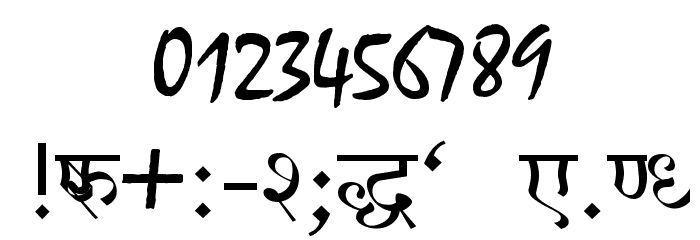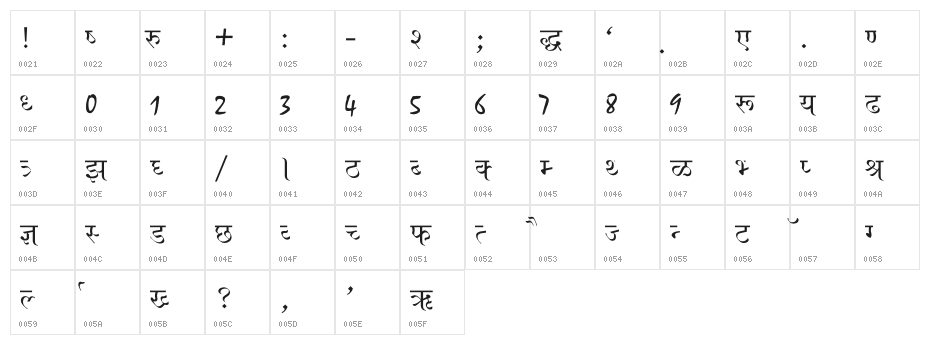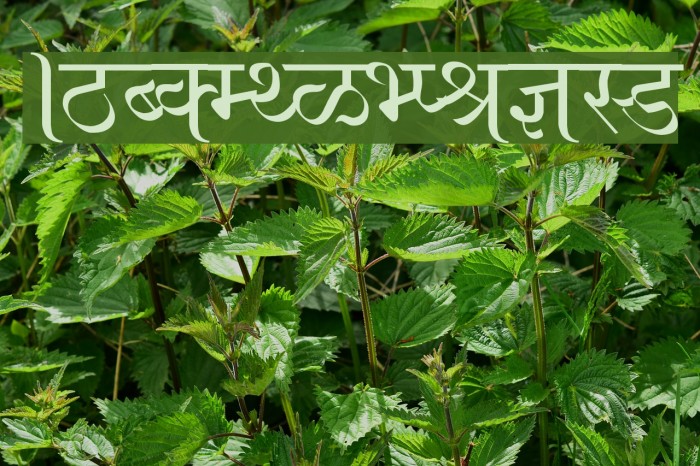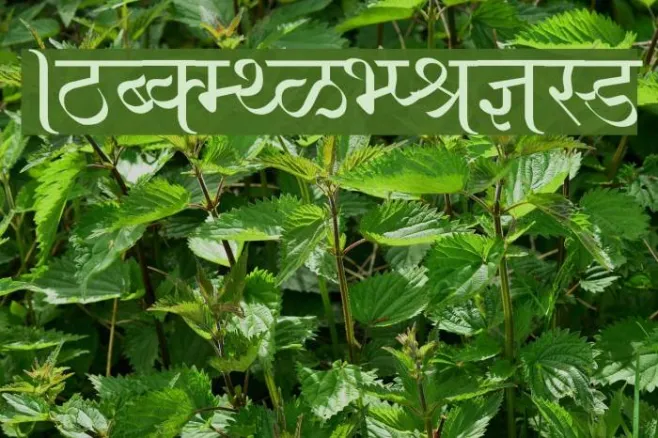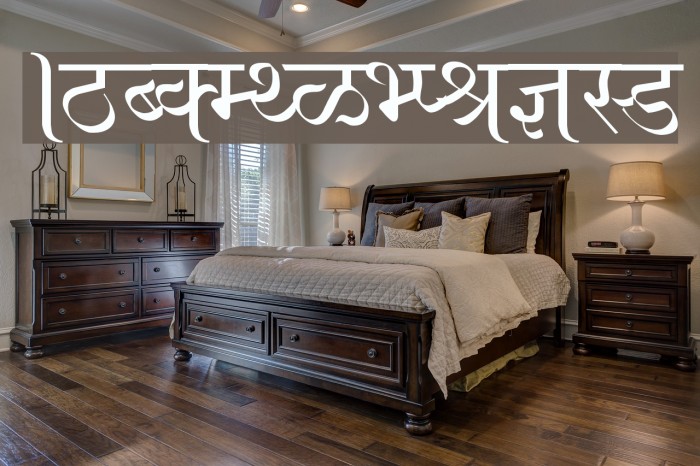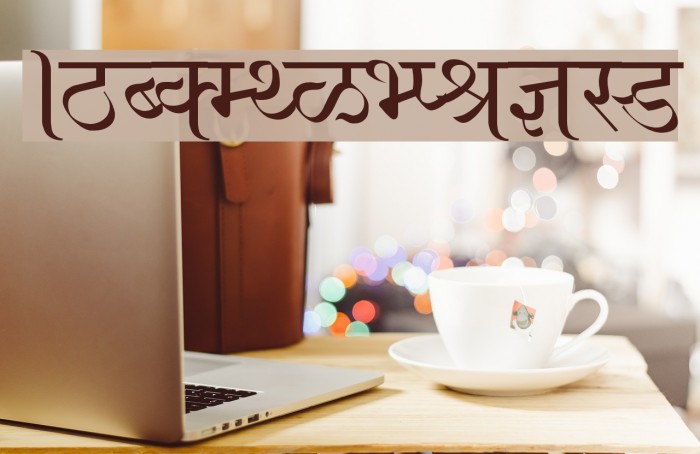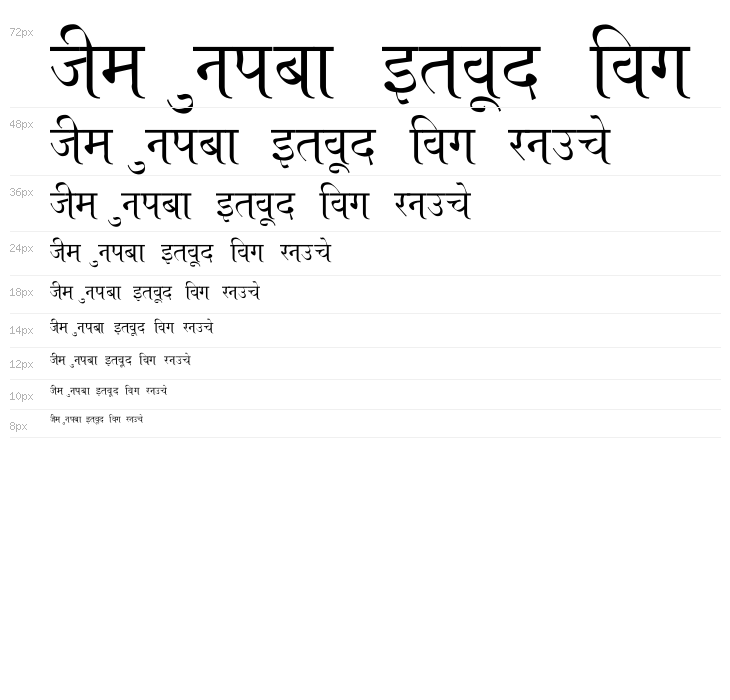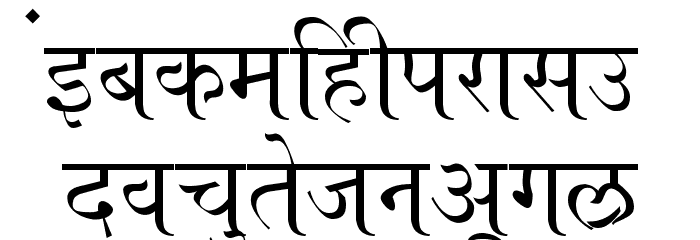
Ajay Normal Font
Ajay Normal Description
This font showcases a traditional Devanagari script with a classic and elegant style. The characters are intricately designed, featuring a blend of sharp and rounded edges that give it a sophisticated appearance. The strokes are moderately thick, providing a balanced contrast that enhances readability while maintaining an artistic flair. The numerals and special characters are harmoniously integrated, matching the overall aesthetic of the script. This font is ideal for projects that require a touch of cultural authenticity and elegance.
| Use Case | Headlines, Cultural texts, Educational materials |
| Proposed Projects | Ideal for cultural publications, traditional event invitations, and educational materials. |